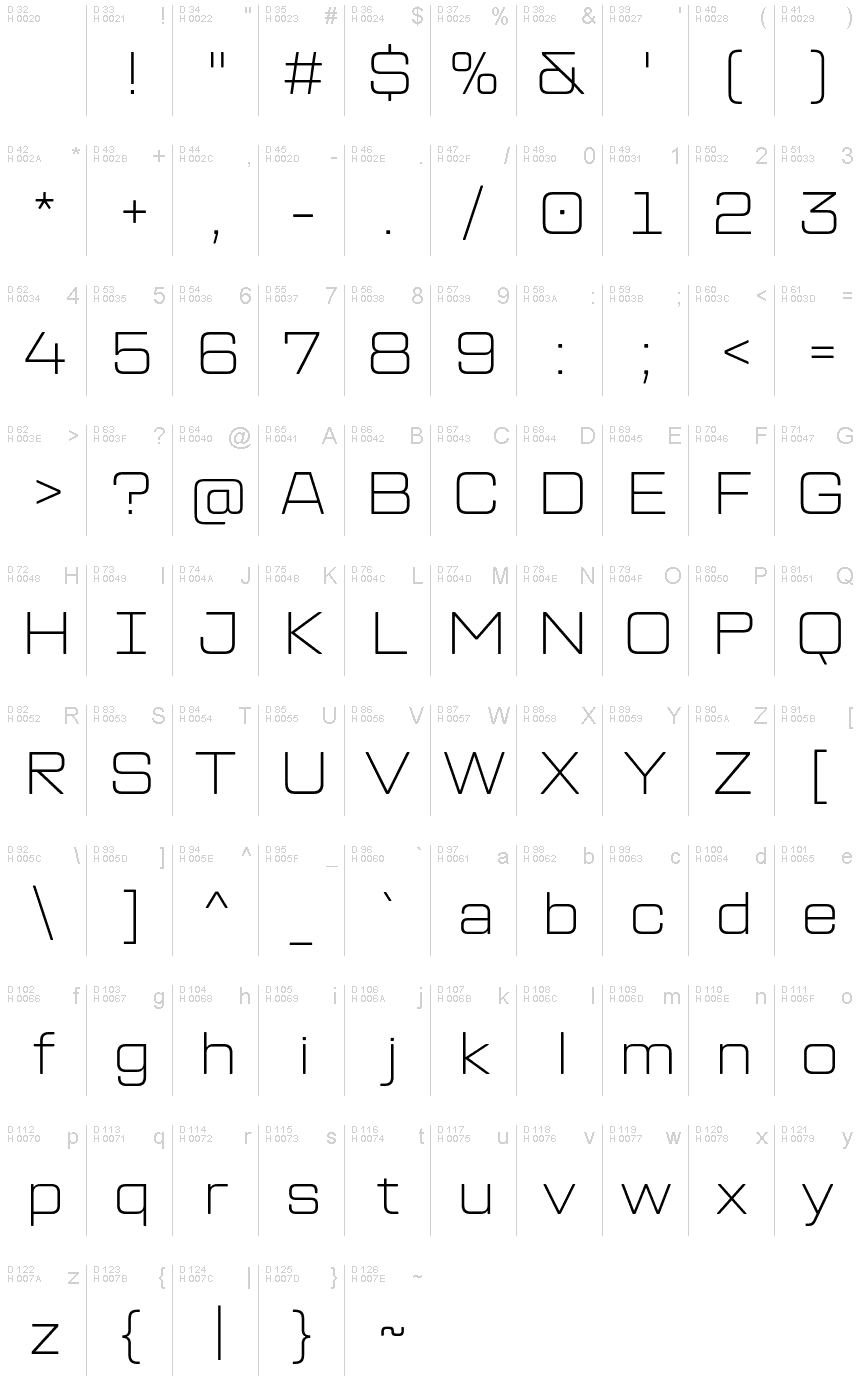
TT Lakes Neue Trl Ext XLt
TT Lakes Neue Ext XLt is the perfect font for modern designs that require a clean and minimalistic approach. Created by the TypeType Foundry, this sans serif typeface boasts an extra-light weight, making it ideal for projects where subtlety is key. The expanded width of this font allows for increased legibility, ensuring that your message is communicated with clarity and precision. Whether you're designing a website, creating a logo, or crafting a brochure, TT Lakes Neue Ext XLt will elevate your project to new heights of sophistication and style. Trust us - this font will not disappoint!